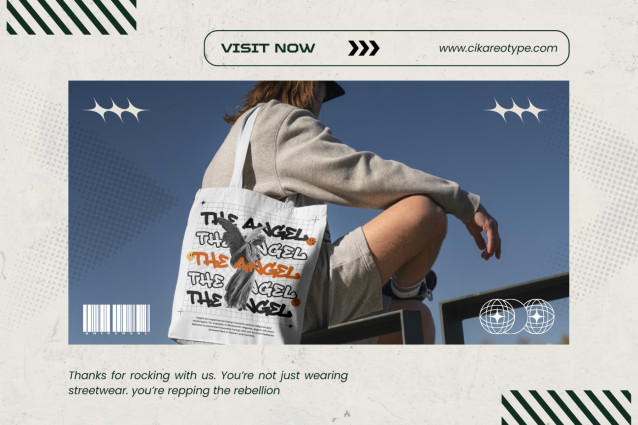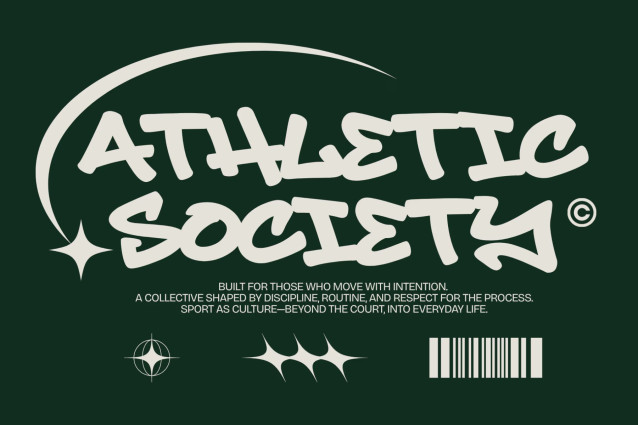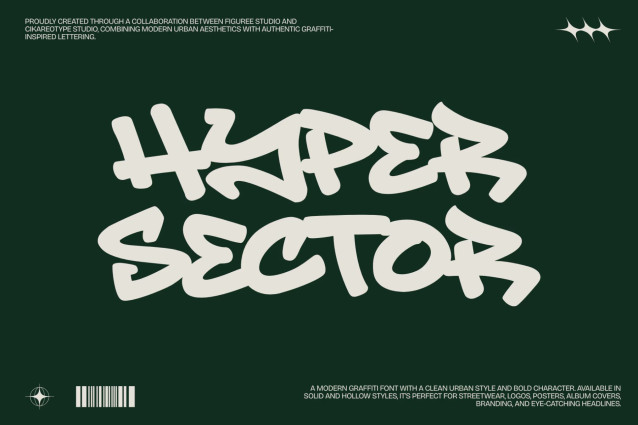
Hyper Sector Graffiti Font
Hyper Sector is a bold and contemporary graffiti font designed for creators who want clean urban aesthetics with a modern twist. Combining solid lettering with a striking outline version, this modern graffiti font captures the energy of street culture while delivering the precision needed for professional branding and digital design. Whether you’re creating logos, streetwear graphics, posters, album artwork, gaming visuals, or social media content, Hyper Sector graffiti font provides bold typography that instantly commands attention.
Inspired by contemporary graffiti lettering and futuristic urban design, Hyper Sector features thick geometric forms, confident proportions, and balanced spacing that create an unmistakable visual identity. This outline graffiti font offers both expressive personality and exceptional readability, making it suitable for designers who need typography that performs beautifully across digital and print media.
Unlike traditional graffiti lettering that relies heavily on drips or distressed effects, Hyper Sector graffiti font focuses on clean structure and bold outlines. The result is a professional urban graffiti font that feels modern, energetic, and highly versatile for today’s creative industries.